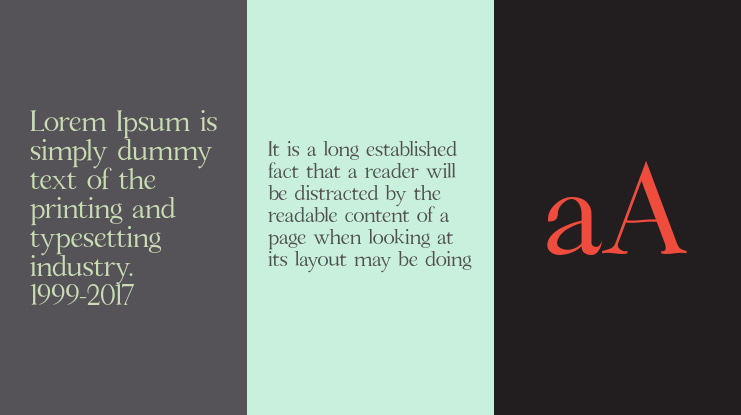
Flake Font
Flake - a Classy Vintage serif with cursive chic serif, Specially designed for fashion-themed projects, perfectly suitable for creating elegant, chic, lifestyle design such as logos, title, and magazine, and more.